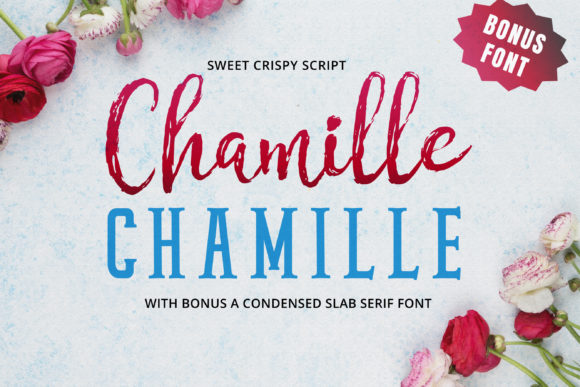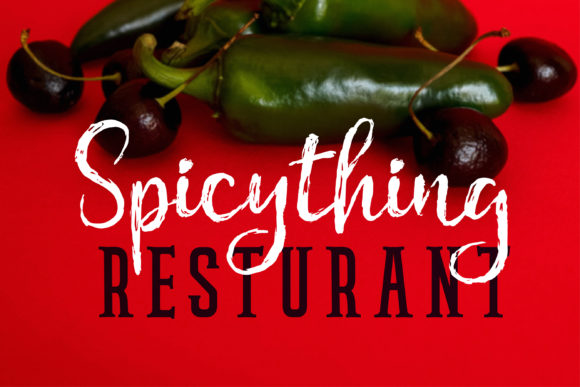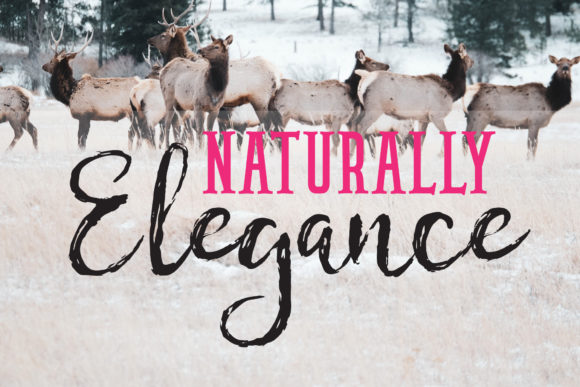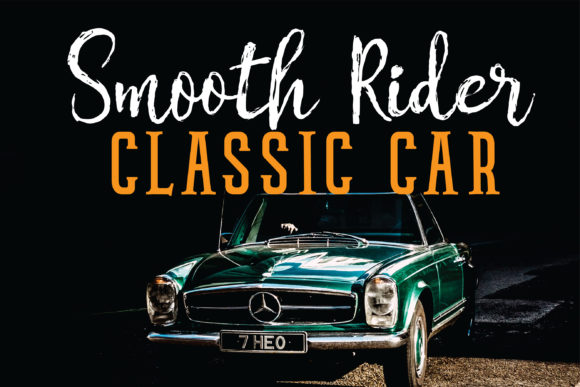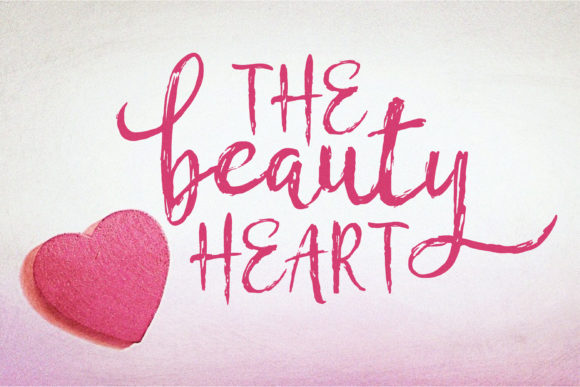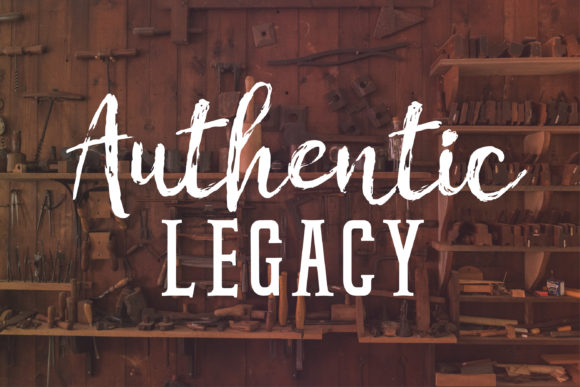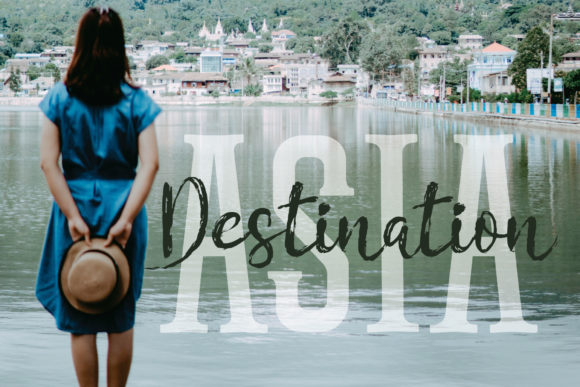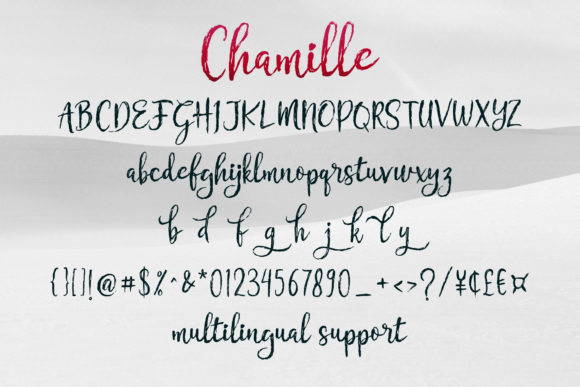
Chamille Script Font
About Chamille Script Font
The Chamille is a sweet, hand-lettered font with a semi dry brush pen effect. It has a casual and organic feel, and combined with its bonus font, a condensed slab serif, it’s perfect for adding an exclusive and high-end touch. This combination is great for titles, display, headlines, posters, and more